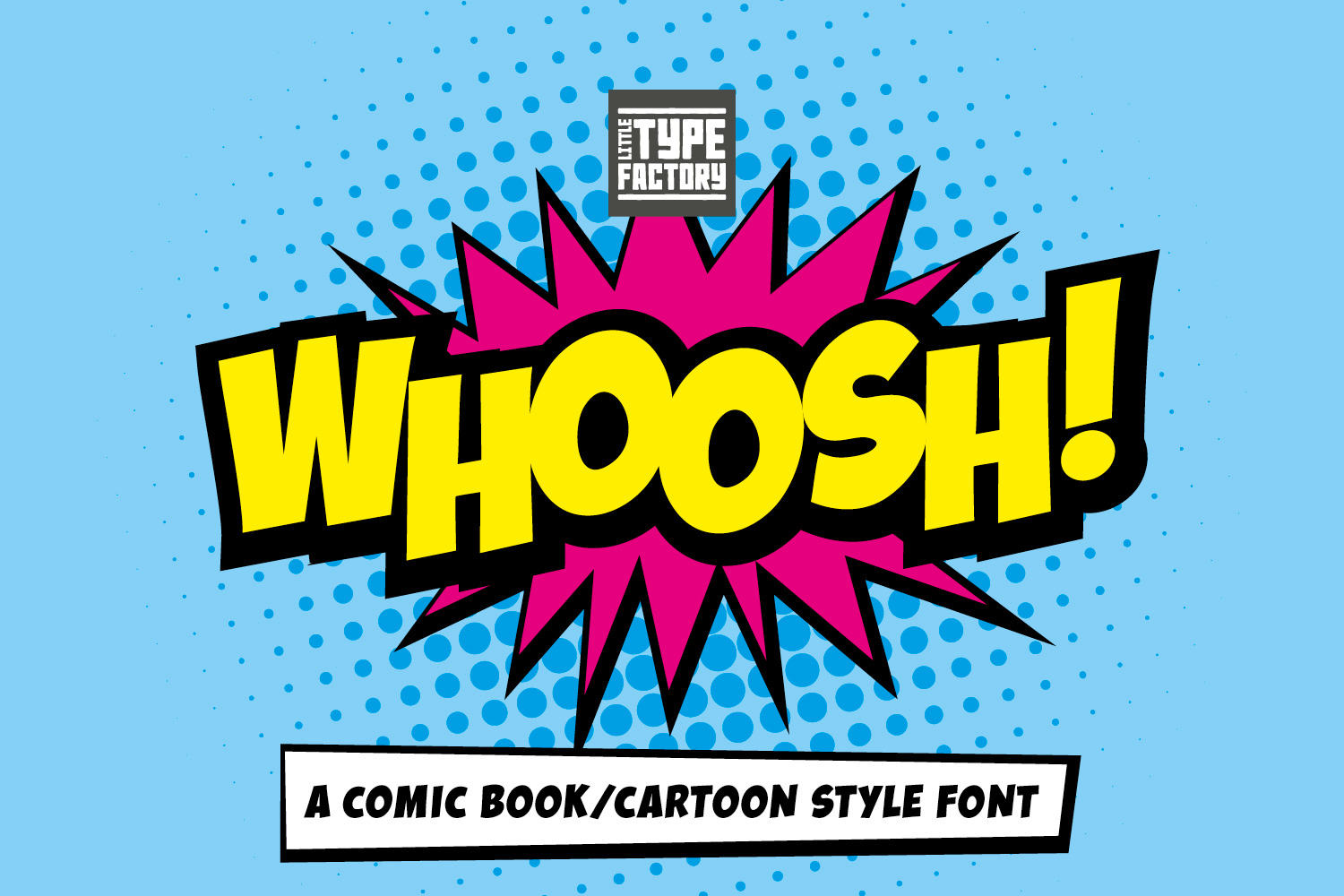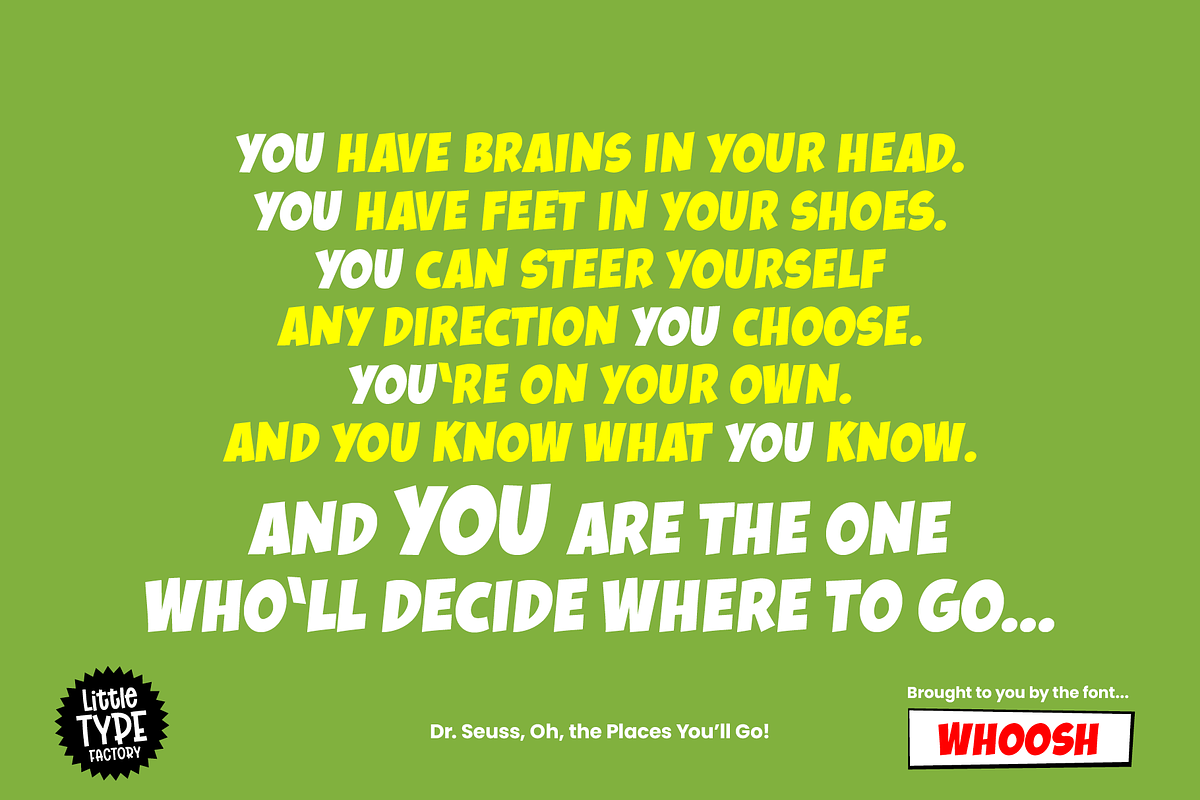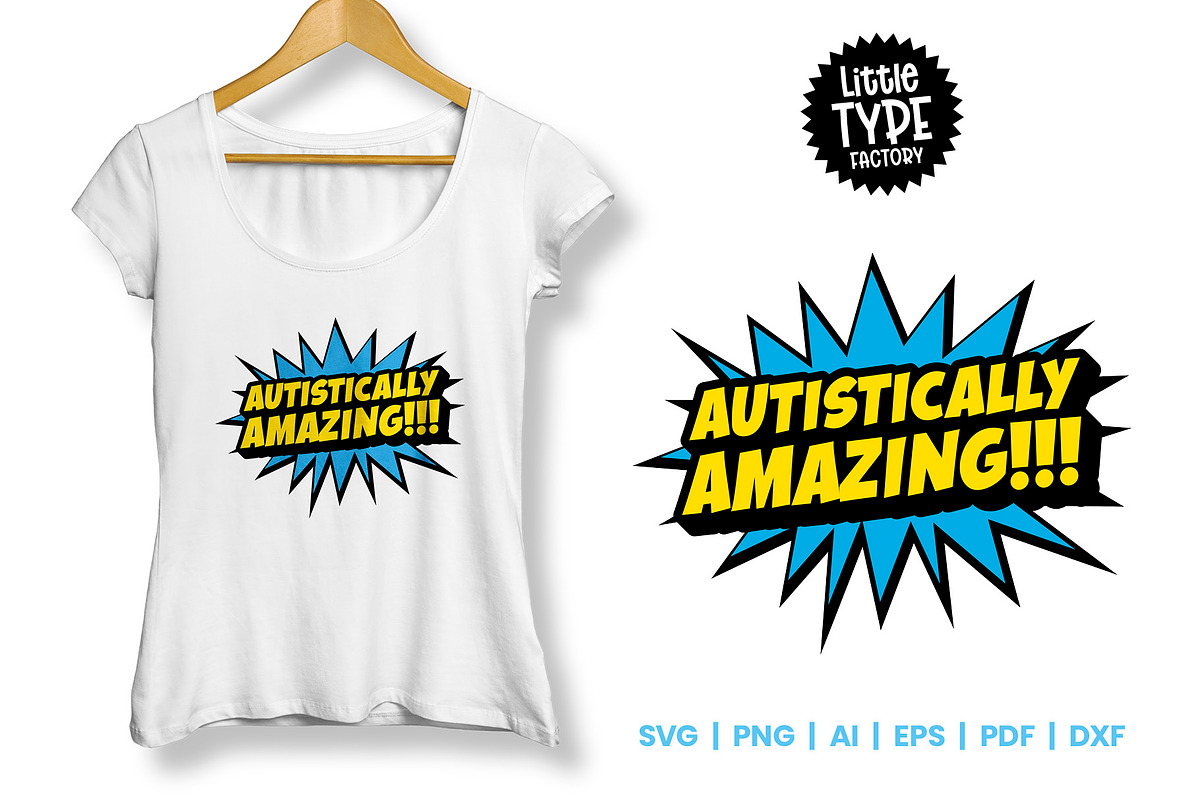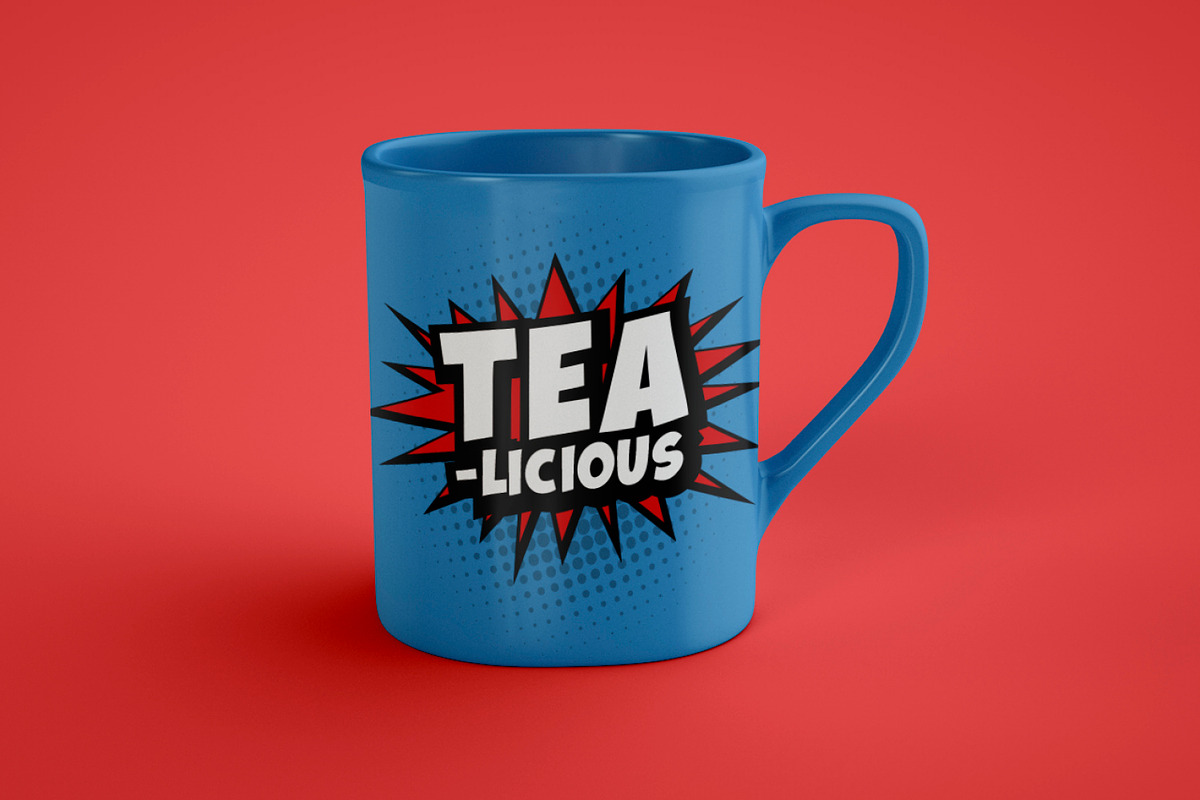
Whoosh! Comic Book/Cartoon Font
Whoosh. The best comic book font there is. The best cartoon font there is. The best superhero font there is! Perfect for that WOW! factor.
A bold and fun font with tons of impact! It is playful and strong. Perfect for kids and children's items yet cool and unique for products with bags of character. Complete with uppercase, lowercase and special characters. Includes the full European character set including western, central and south eastern glyphs. Font formats include... OTF (51kb) TTF (73kb) WOFF (31kb) and WOFF2 (29kb)